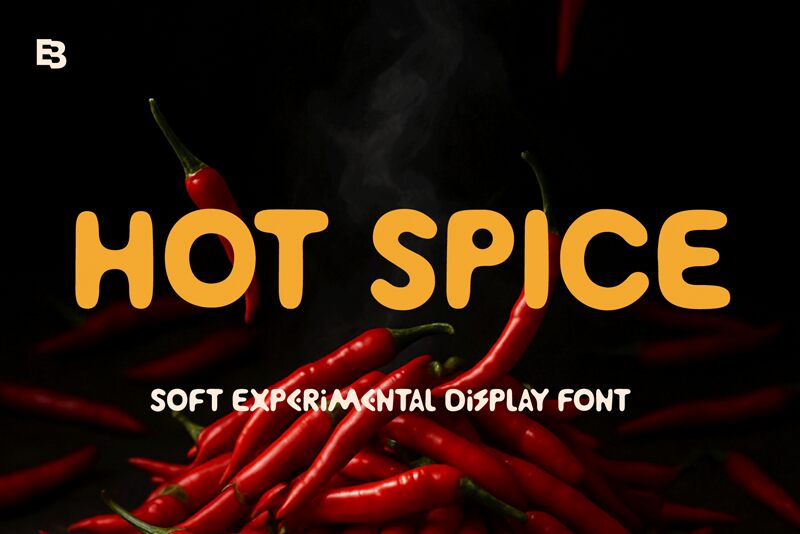
Hot Spice font by Eko Bimantara is a free fancy font with a rounded and smooth appearance. Designed with warmth, this font is ideal if you seek to add a modern, casual, and friendly feel to a display. Approachable in nature, this typeface, unlike any other, is dynamic, presenting a sleek soft edge that makes it attractive on multiple applications and platforms.
Hot Spice has versatile familiar use and can be used for branding, packaging, advertising, magazine covers, posters, invitation cards, printed accessories, book covers, apparel design, digital interfaces, gaming, and video editing.